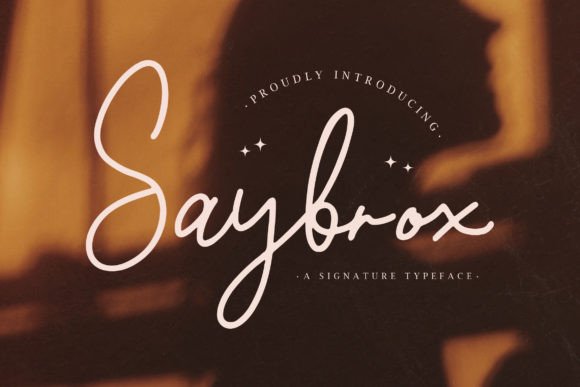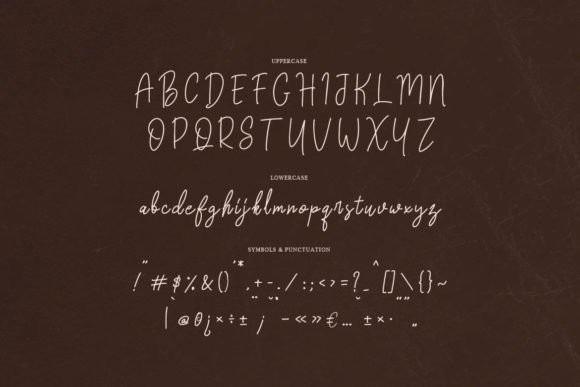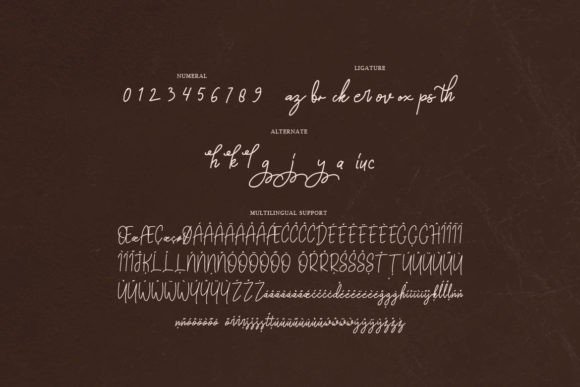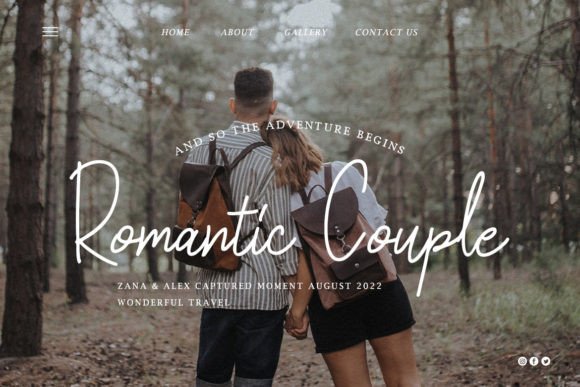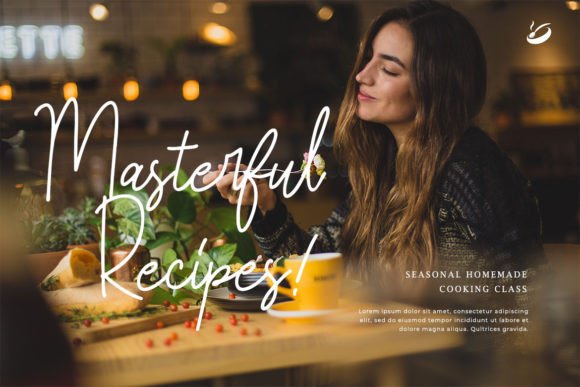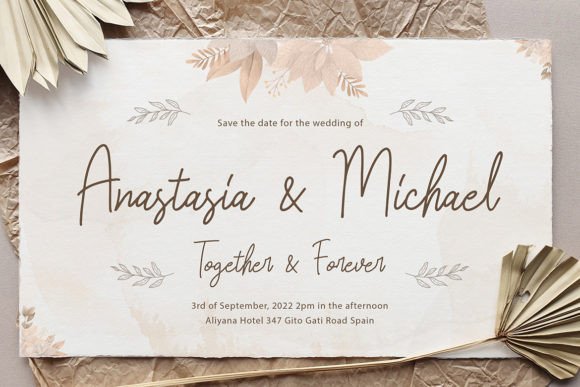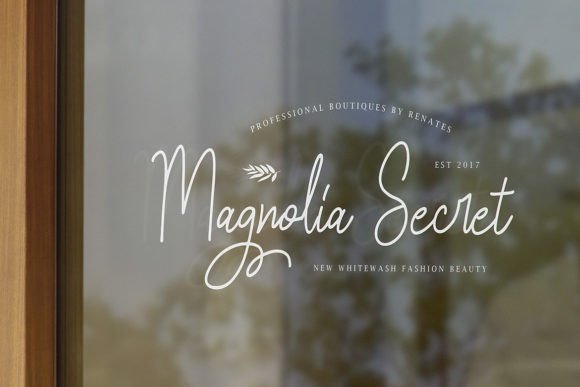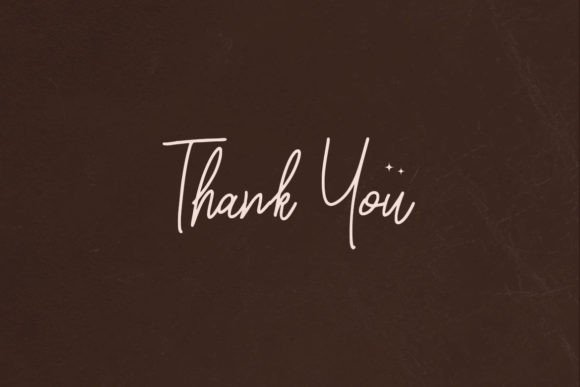
Saybrox Font
“Saybrox” boasts an authentic handwriting style that has the power to elevate your projects to another level. This font, with its natural and genuine appearance, is perfectly suited for logos, product packaging, and wedding invitations.
The authentic handwriting style of “Saybrox” adds a personal and human touch to your designs, making them feel unique and relatable. It’s the kind of font that transcends the digital realm, conveying a sense of authenticity and individuality that resonates with audiences.
In logos, “Saybrox” becomes a defining element that communicates a brand’s personality with a touch of handcrafted charm. The font’s versatility allows it to adapt seamlessly to various industries and aesthetics, adding a distinctive character to the visual identity.
For product packaging, “Saybrox” brings a warmth and approachability that can enhance the overall appeal of the product. Whether it’s used on labels, tags, or packaging materials, the font contributes to a cohesive and engaging brand experience.
In wedding invitations, “Saybrox” sets the tone for a personal and intimate celebration. Its authentic handwriting style adds a romantic and timeless quality, making it a fitting choice for couples seeking a genuine and heartfelt expression in their wedding stationery.
In conclusion, “Saybrox” is more than just a font; it’s a design asset that imparts authenticity and charm to your projects. Whether you’re working on logos, product packaging, or wedding invitations, let “Saybrox” be the authentic handwriting font that elevates your designs to new levels of creativity and connection.